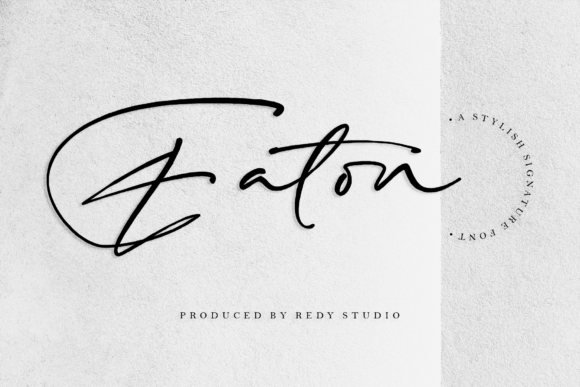
Prepare to be mesmerized by Eaton Font, an elegant script font that will transform your digital presence into a captivating masterpiece. RedyStudio, the creative minds behind this font, have meticulously crafted each stroke to evoke a sense of timeless sophistication and modern flair.
Eaton Font is not just a collection of letters; it's an invitation to add a touch of personal charm to your emails. Each character dances across the screen with a graceful fluidity, leaving an unforgettable impression on recipients. The font's calligraphic roots lend it an air of timeless elegance, while its contemporary design ensures it remains fresh and relevant.
Imagine your email signature adorned with the captivating curves of Eaton Font. It's the perfect way to make a lasting impression, leaving a lingering memory of your professionalism and attention to detail. But Eaton Font's versatility extends far beyond email signatures. It's an exceptional choice for branding, logos, invitations, and any project that demands a touch of sophistication.
With Eaton Font, you'll effortlessly elevate your designs to new heights. Its PUA encoding grants you access to a world of glyphs and swashes, empowering you to customize your creations with endless possibilities.
Succumb to the allure of Eaton Font and experience the joy of creating captivating content that resonates with your audience. Let its exquisite strokes transform your digital presence into a reflection of your unique style and impeccable taste.